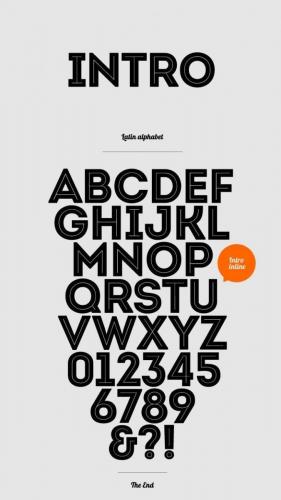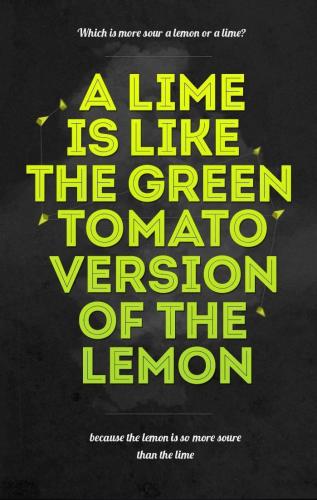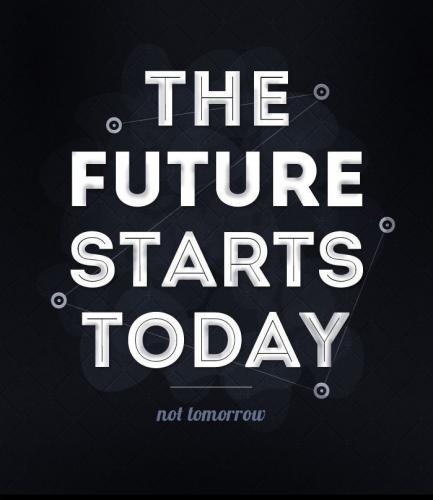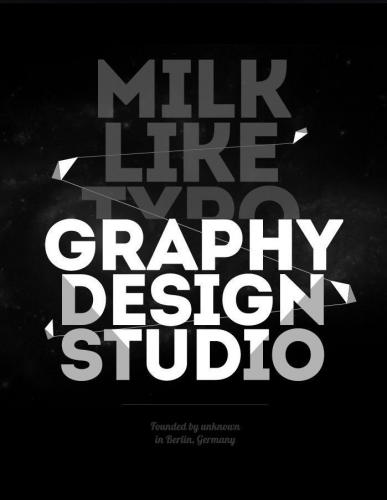
What distinguishes the new Intro free font from FontFabric is the strongly expressed geometric makeup and structure. The basic letters of the Alphabet like “A”, “O” and “H” are built or based on principles of simple geometric forms – triangles, circles and squares.
In contrast to the Futura font which possesses similar styling, the Intro font preserves the characteristic sharpened edges of the “А”, “V” and “W” letters even in it’s boldened form.